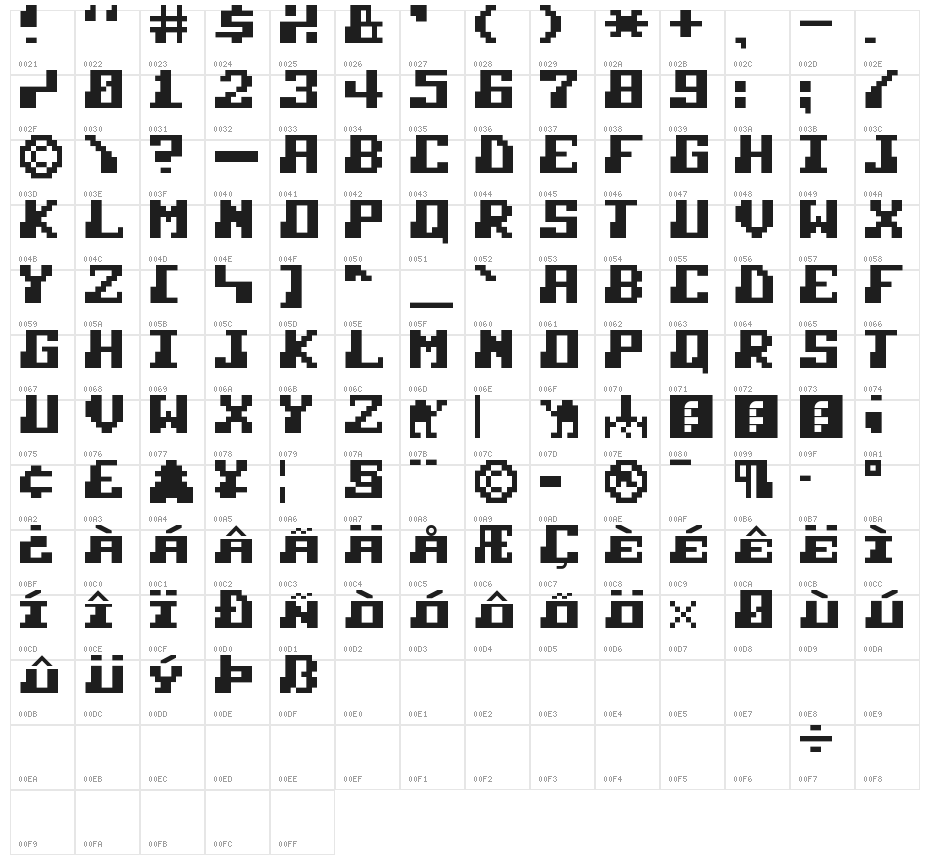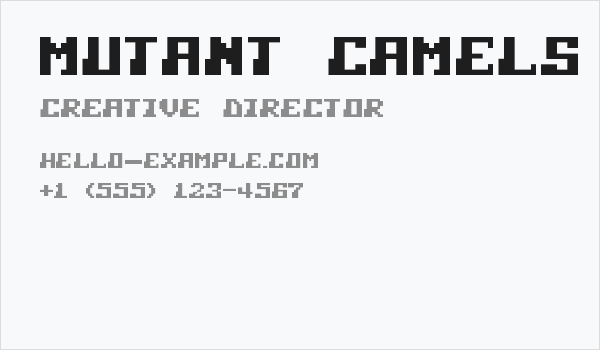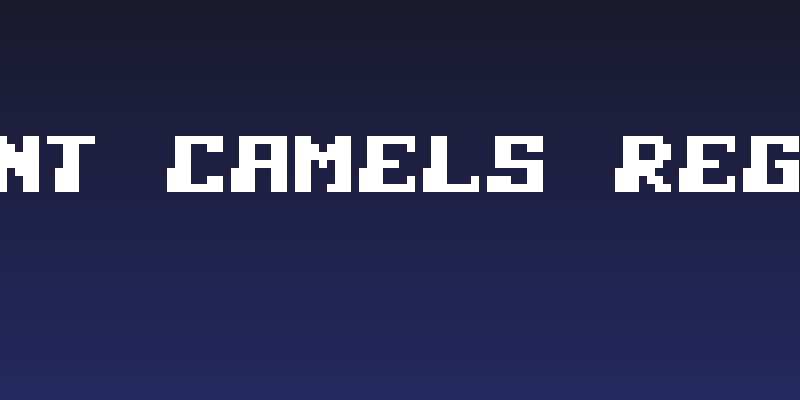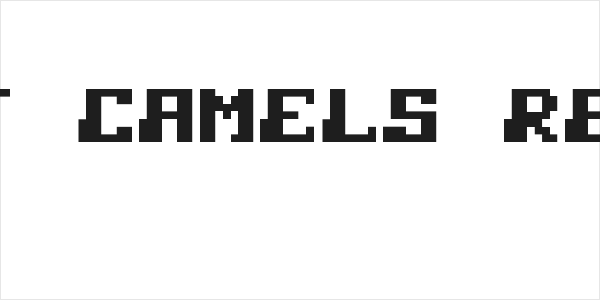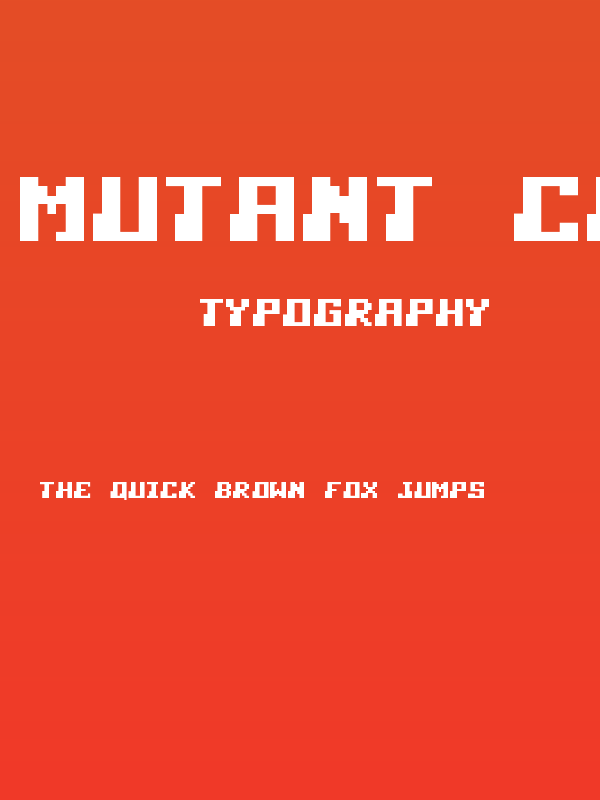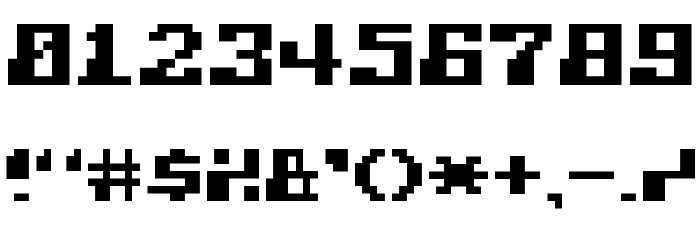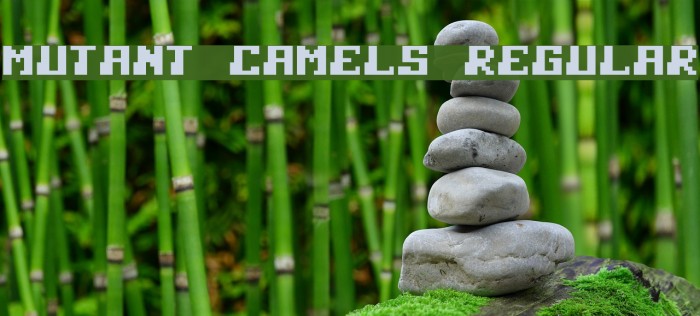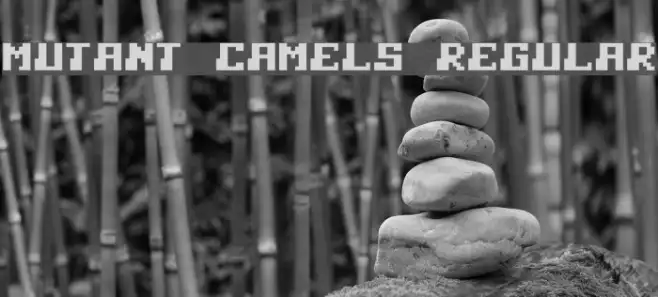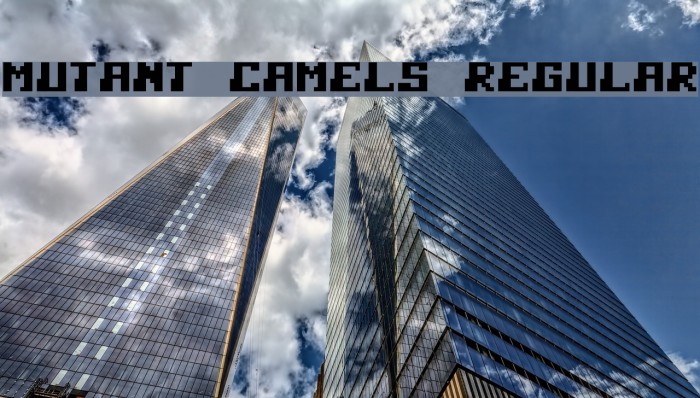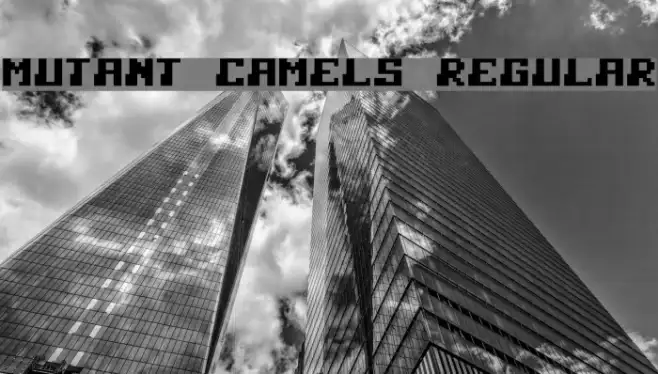
Mutant Camels Regular Font
Mutant Camels Regular Description
This font features a bold, pixelated design reminiscent of classic video game graphics. Each character is constructed with a blocky, geometric style that gives it a distinct, retro digital appearance. The uppercase and lowercase letters maintain a consistent height, contributing to a uniform look across the text. Numbers and special characters follow the same pixelated pattern, ensuring cohesion throughout. The font's unique style makes it highly suitable for projects that aim to evoke nostalgia or a tech-inspired aesthetic.
| Proposed Projects | Ideal for video game design, retro-themed posters, digital art, and tech-focused branding. |